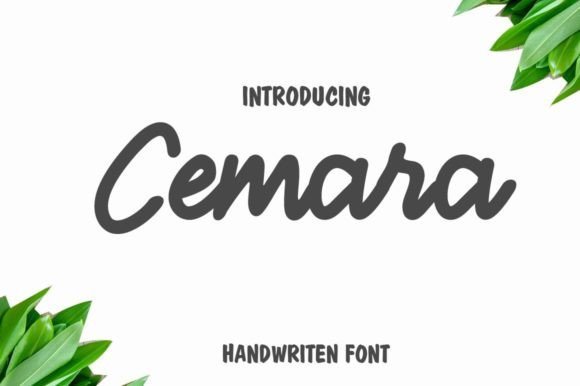
Discover the Perfect Script Font for Your Next Creative Project
As a designer, there’s nothing quite like the thrill of bringing a new idea to life. You’re brainstorming concepts, sketching out rough drafts, and pouring over inspiration boards, trying to capture the essence of your vision. But sometimes, all it takes is one perfect font to elevate your design from good to great. Enter the Cemara Font, a simple yet bold script font that’s perfect for logos, quotes, apparel designs, wedding invitations, and much more.
With its customizable alternates, the Cemara Font offers endless possibilities for designers looking to create unique and eye-catching designs. Whether you’re working on a personal project or a client brief, this versatile font is sure to become a go-to choice. And the best part? It’s incredibly easy to use, making it accessible to designers of all levels.
Cemara Font Key Features
- Unique Characteristics: Cemara Font features a unique blend of traditional and modern design elements, with intricate details and subtle nuances that set it apart from other fonts.
Cemara Font Review
After diving into the Cemara font, I have to say I was initially drawn in by its unique aesthetic ✨. The font’s blend of modern and traditional elements creates a captivating visual experience that would be perfect for projects requiring a touch of elegance and sophistication.
The Cemara font has some notable strengths, including:
- Its sleek and refined appearance, making it ideal for luxury brand materials and high-end publications ✨
- Excellent legibility, which ensures the text remains clear and easy to read even at smaller font sizes ✨
- A wide range of font styles and weights, allowing designers to create visually appealing and dynamic typographic compositions ✨
However, I do have a few concerns with the Cemara font ⚠️. Some of its limitations include:
- It may be too formal for certain projects, potentially limiting its versatility ⚠️
- The font’s intricacies can sometimes make it difficult to read at very small sizes ⚠️
Overall, the Cemara font is a strong choice for designers seeking a sophisticated and elegant typeface. While it may have some limitations, its unique aesthetic and excellent legibility make it a valuable addition to any design toolkit.
Cemara Font is suitable for:
- Creating custom logos and icons
- Designing presentations and documents
- Adding a unique touch to headings and titles